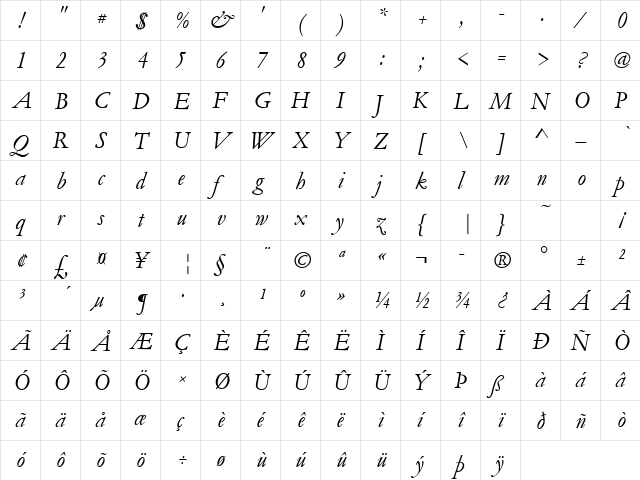
GaramondNo5D Italic
Design Context for GaramondNo5D Typeface
GaramondNo5D takes a measured approach to typography — its balanced proportions and neutral character make it a reliable workhorse for both digital and print work. The slanted form adds forward momentum and visual energy.
Pro Tip: Try GaramondNo5D for annotation and caption copy alongside an upright companion — the contrast in angle creates a dynamic but ordered typographic system.